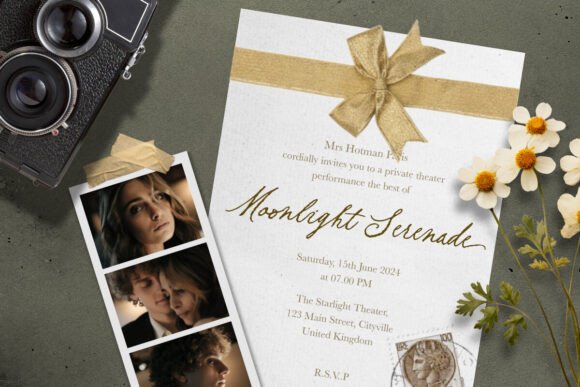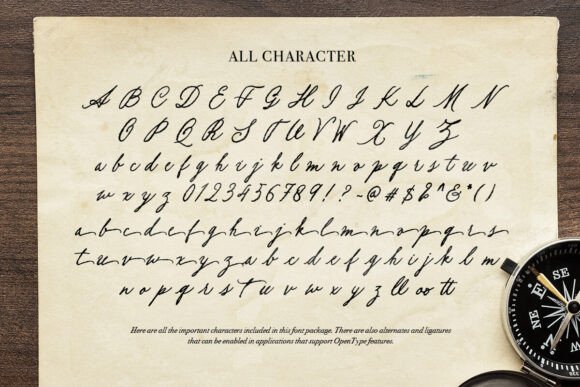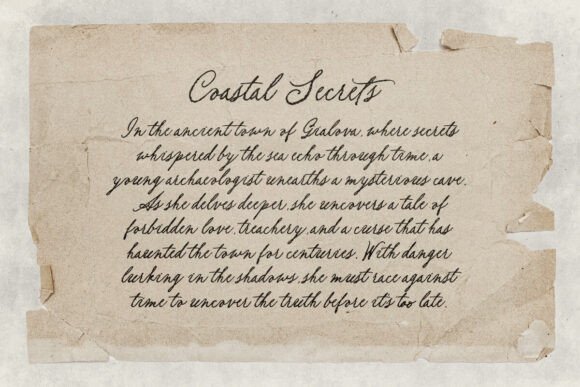
Vintage Story Font
Vintage Story is a handwritten script font with an old and rustic charm. It’s perfect for wedding invitations, love letters, logos, quotes, and signatures. With ligatures and alternates, this font adds authenticity and beauty to your designs. Vintage Story also supports multiple languages.